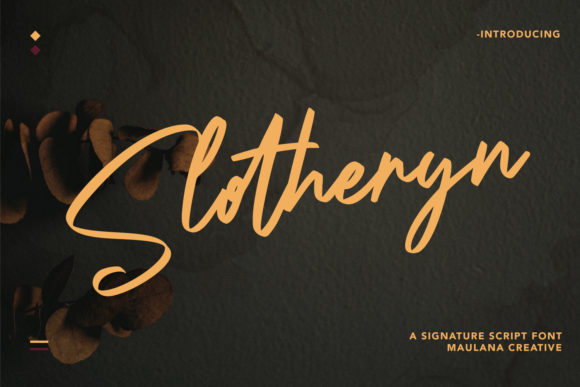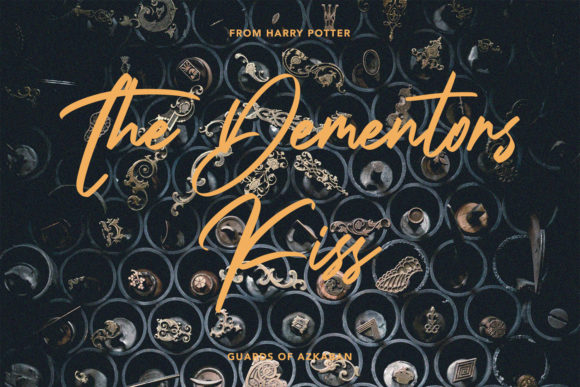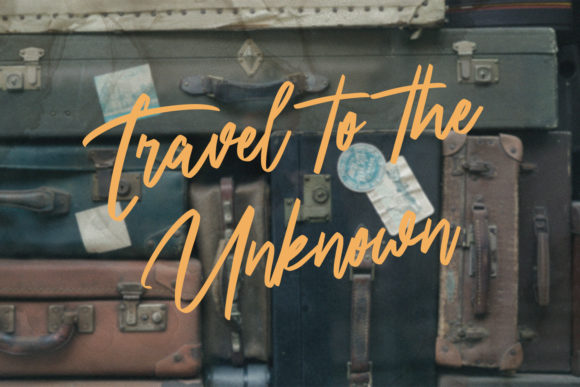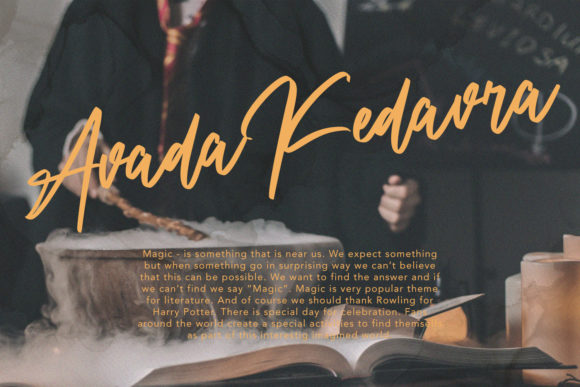
Slotheryn Font: Elegant Signature Script for Modern Logo Design & Branding
About the Slotheryn Font
Discover the charm of Slotheryn Font. This font is a perfect blend of modern aesthetics and classic appeal. Slotheryn is a gorgeous and cursive handwritten font, crafted to give your headlines and logotype projects a stylish touch. This font reads as strong, confident, and dynamic and can add tons of nostalgic character to your designs.
Slotheryn Font Usage Examples
Slotheryn Font Example